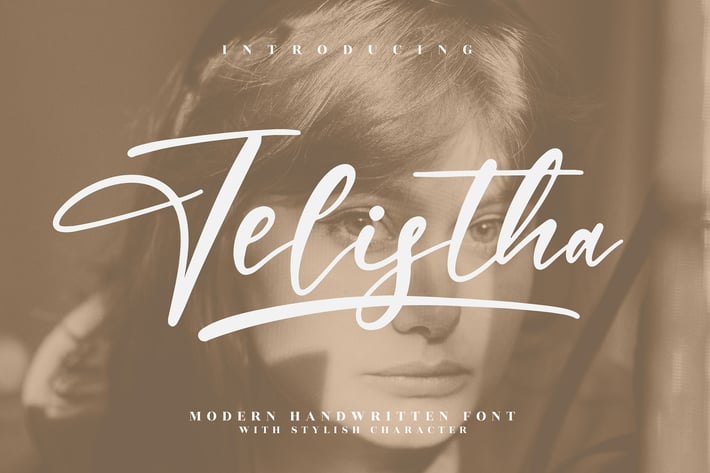
Jelistha Modern Handwritten Font
Jelistha is a modern handwritten font with elegant curves, stylish alternates, and flowing swashes—perfect for adding a feminine, premium touch to any design.
Its smooth strokes and versatile ligatures make Jelistha ideal for personal branding, lifestyle quotes, fashion lookbooks, and wedding stationery.
+ Full stylistic alternates and swashes
+ Uppercase & lowercase characters
Bring your text to life with elegance and style—Jelistha makes every word beautiful.